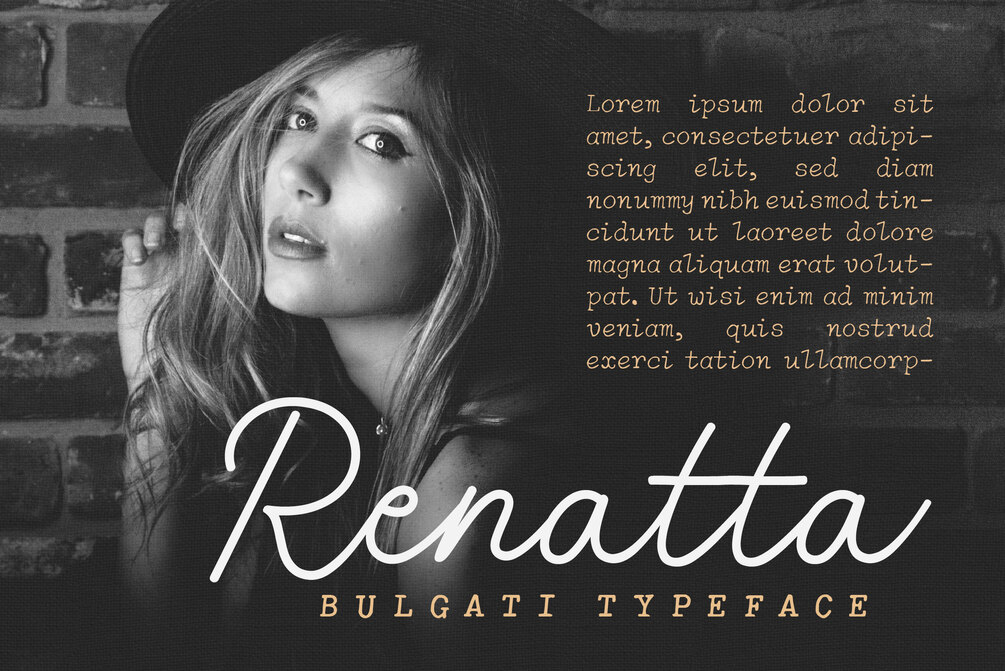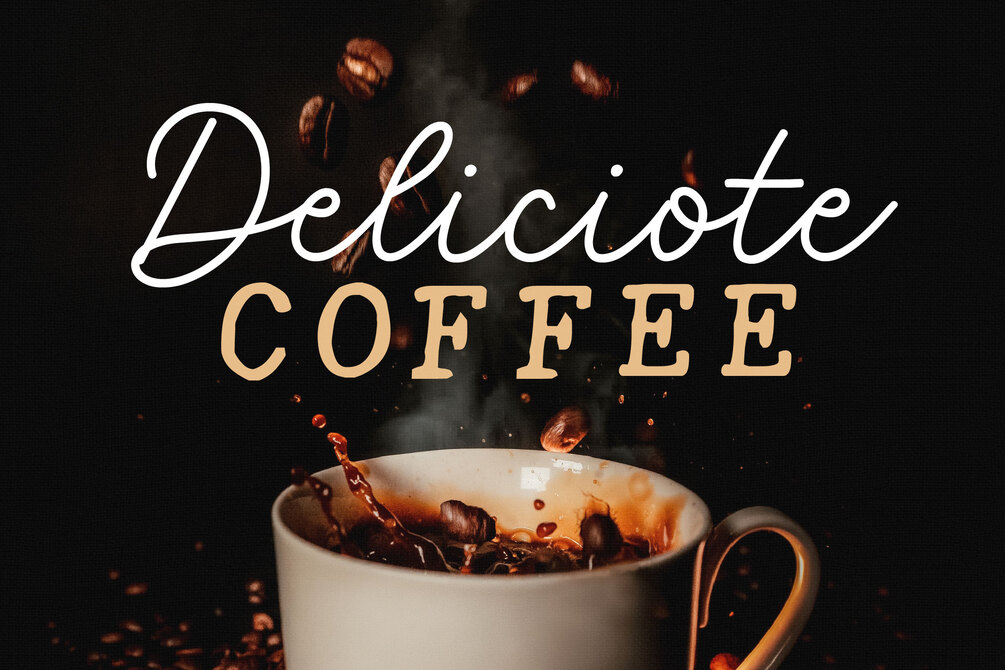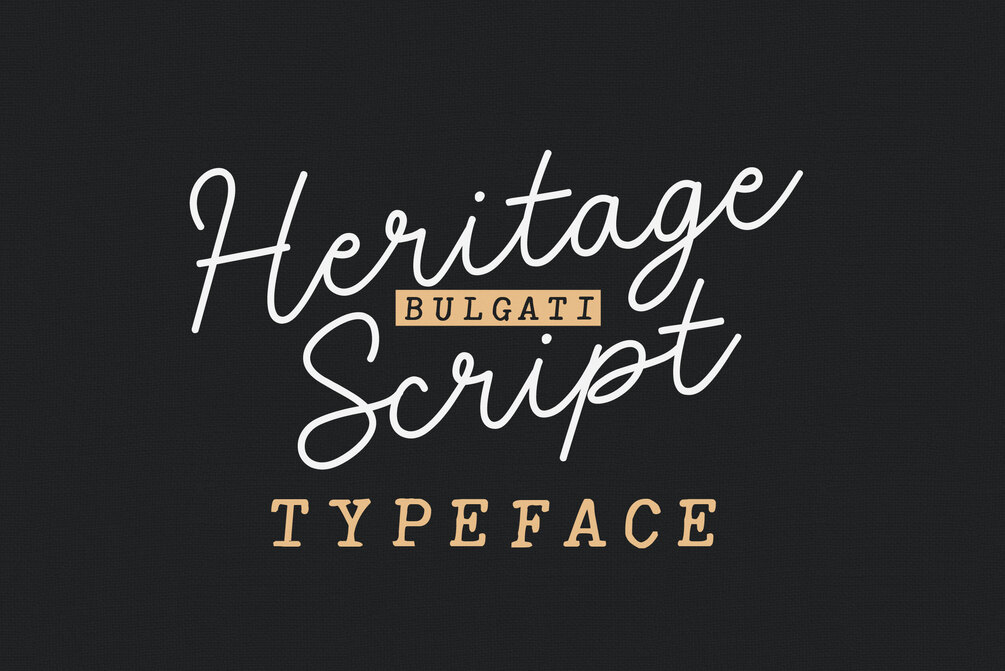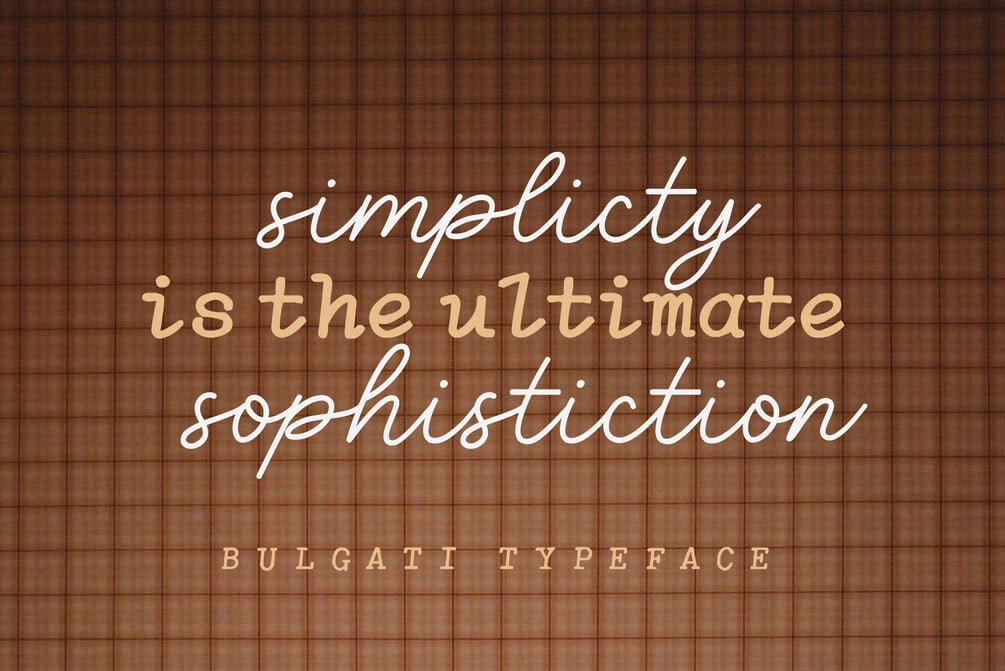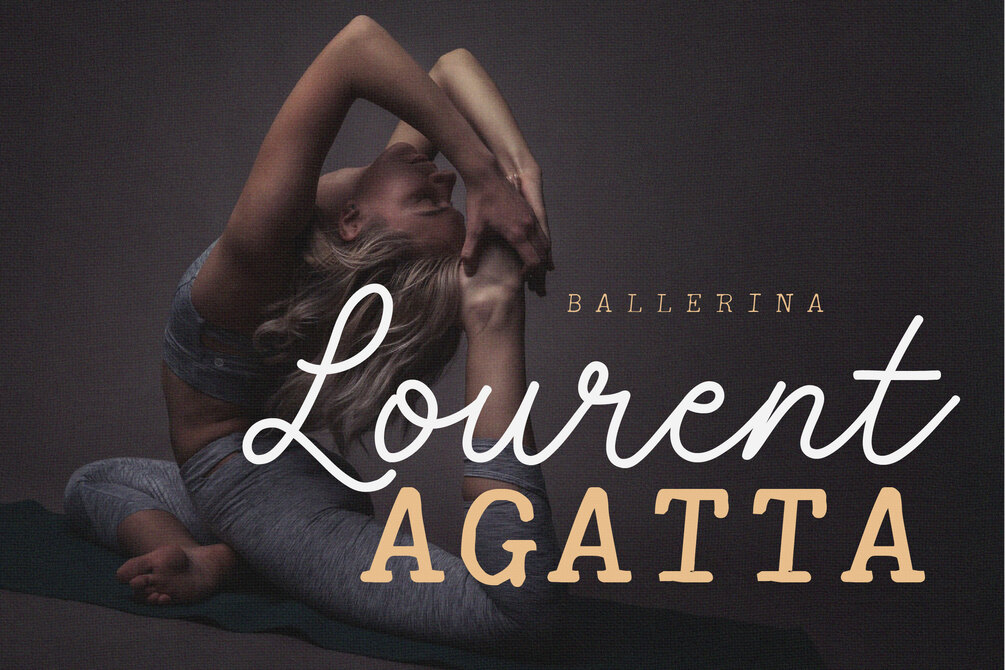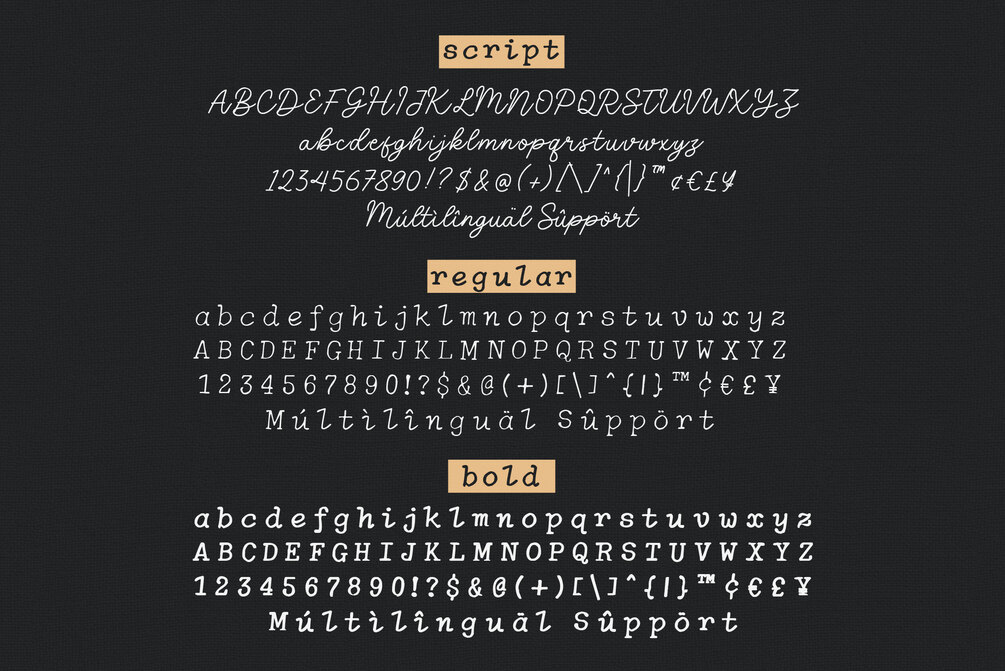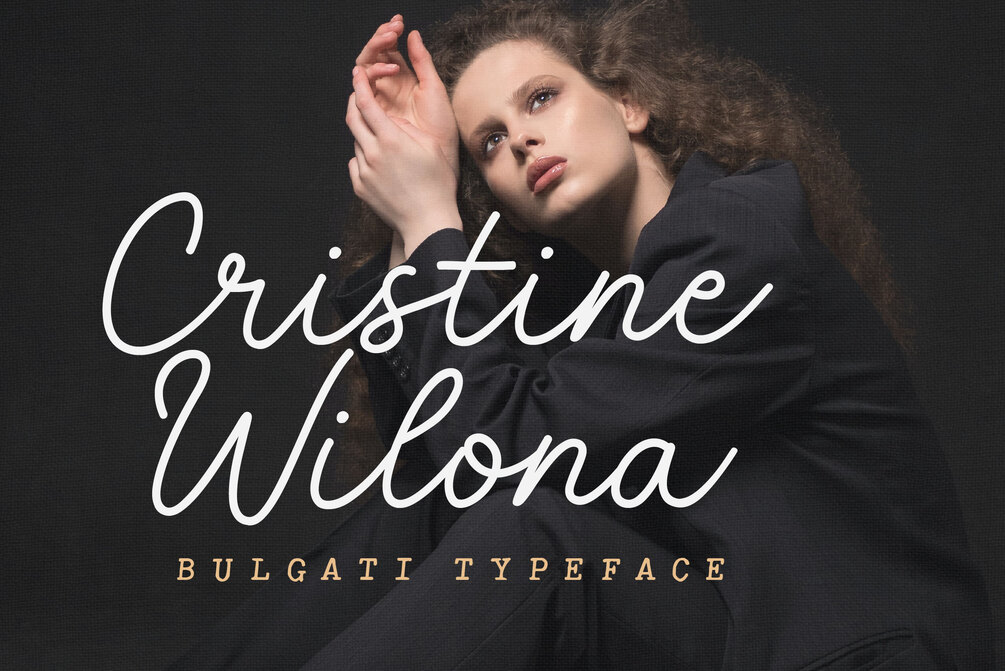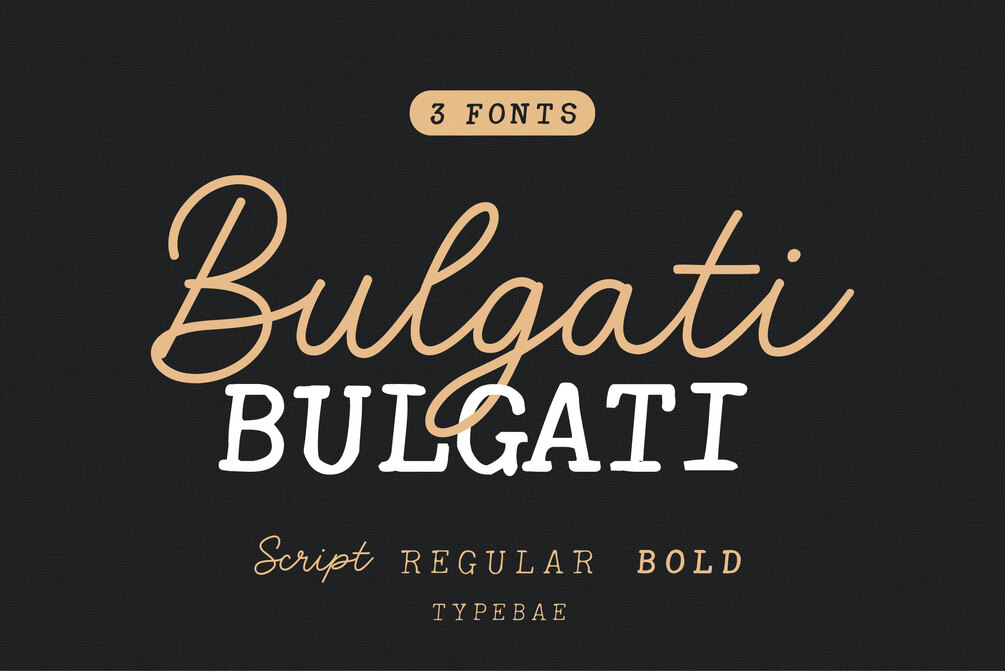
Bulgati
Bulgati is a handwritten font with vintage looks. It is perfect to create beautiful vintage typography on your any project like t-shirt, merchandise, logo label, poster, magazine, packaging, quotation and more.
Version : Script, Regular, Bold
• Uppercase & Lowercase
• Numbers & Punctuation
• Multilingual Support